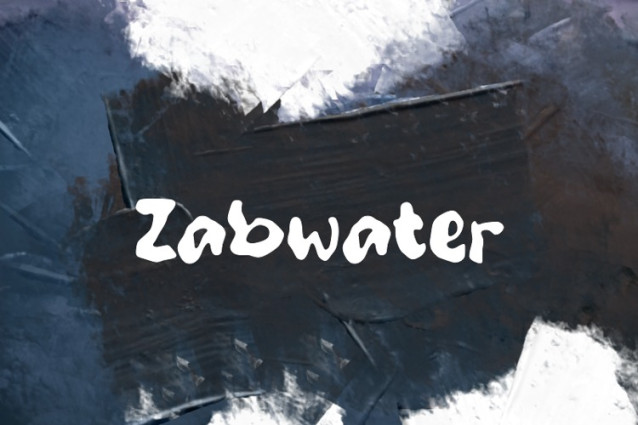
Zabwater Font
Zabwater Font, suitable for any design needs : logo, branding, modern advertising design, logos, poster quote, book / cover Title, editorial design, website / blog, card, t-shirts, and any hand-lettered needs.